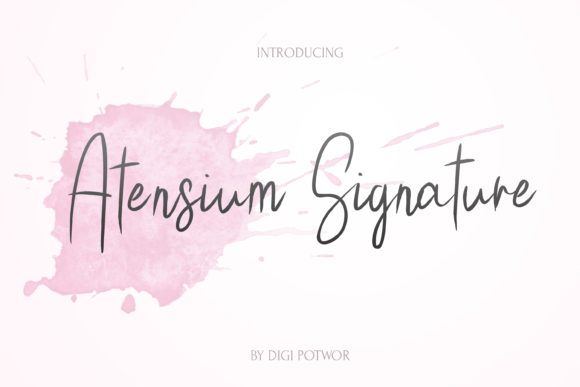
Indulge in the enchanting realm of Atensium, a script font that dances with elegance and authenticity. Each letter, meticulously crafted by the skilled hands of DIGI Potwor, exudes a timeless charm that will elevate your creations to breathtaking heights.
With its graceful curves and delicate strokes, Atensium whispers stories of love, joy, and heartfelt emotions. Its versatility knows no bounds, making it the perfect companion for ethereal invitations, enchanting Instagram captions, and heartfelt DIY projects.
Whether you're a dreamer seeking to capture the magic of special moments or an artist yearning to create masterpieces, Atensium will ignite your imagination and transform your words into works of art. Every stroke and flourish will evoke a sense of wonder and enchantment, captivating the hearts of all who lay eyes upon it.